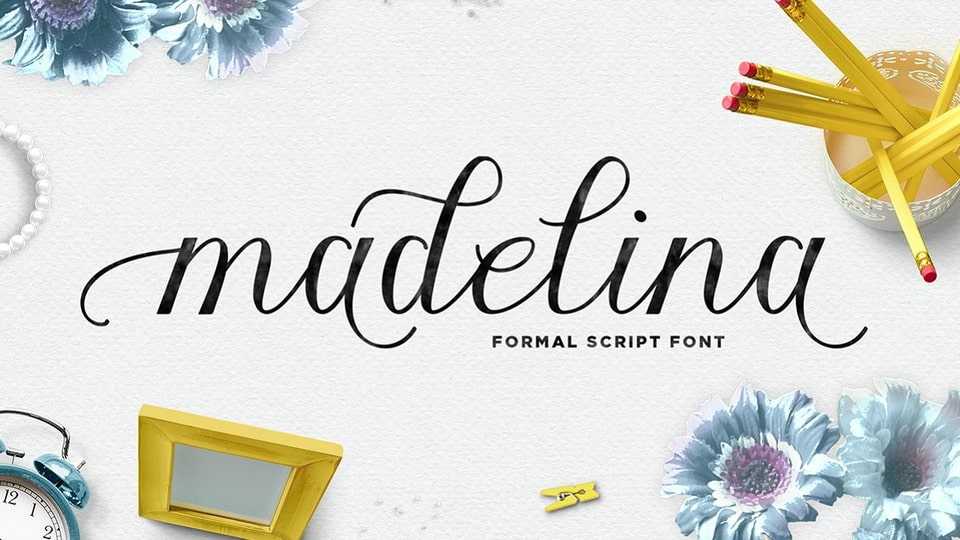
Download Madelina font, a sweet and romantic, but also elegant script. This versatile script font has a wide range of applications ranging from greeting cards to Valentine’s craft.